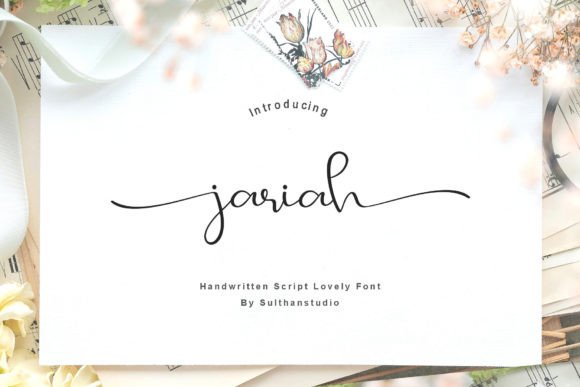
Jariah Font: Elevate Your Design with a Touch of Luxury
In the world of typography, fonts play a crucial role in conveying the tone and aesthetic of a design project. Among the numerous fonts available, Jariah Font stands out for its unique feel and stunning impact. This beautiful and light handwritten font is designed to add a luxury spark to any design project, making it a popular choice among designers and creatives.
What Makes Jariah Font Special?
Jariah Font is a handcrafted font that boasts a distinctive and elegant style. Its light and airy feel makes it perfect for designs that require a touch of sophistication and refinement. The font’s unique feel is characterized by its flowing lines, subtle curves, and carefully crafted letterforms. Whether you’re working on a branding project, a website design, or a print material, Jariah Font is sure to make a lasting impression.
Key Features of Jariah Font
- Unique Feel: Jariah Font has a distinct and elegant style that sets it apart from other fonts.
- Light and Airy: The font’s light feel makes it perfect for designs that require a touch of sophistication and refinement.
- Handwritten Style: Jariah Font is a handwritten font that adds a personal touch to any design project.
- Luxury Spark: The font’s elegant style and refined feel make it perfect for adding a touch of luxury to any design project.
The Power of PUA Encoding
One of the standout features of Jariah Font is its PUA (Private Use Area) encoding. This means that the font is encoded with a unique set of glyphs and ligatures that can be accessed with ease. PUA encoding allows designers to access a wide range of characters, including special glyphs, swashes, and ligatures, which can be used to add an extra layer of creativity and sophistication to their designs.
Benefits of PUA Encoding
- Ease of Use: PUA encoding makes it easy to access and use the font’s glyphs and ligatures.
- Increased Creativity: The font’s PUA encoding allows designers to experiment with different characters and glyphs, adding an extra layer of creativity to their designs.
- Flexibility: PUA encoding makes it easy to use the font in a variety of design projects, from branding and advertising to web design and print materials.
Uses of Jariah Font
Jariah Font is a versatile font that can be used in a wide range of design projects. Its elegant style and refined feel make it perfect for:
Design Projects that Suit Jariah Font
- Branding and Logo Design: Jariah Font is perfect for creating elegant and sophisticated brand identities.
- Website Design: The font’s light and airy feel makes it perfect for web design projects that require a touch of refinement and elegance.
- Print Materials: Jariah Font can be used in a variety of print materials, including business cards, brochures, and posters.
- Advertising: The font’s unique feel and stunning impact make it perfect for advertising projects that require a touch of luxury and sophistication.
Tips for Using Jariah Font
To get the most out of Jariah Font, here are a few tips to keep in mind:
Best Practices for Using Jariah Font
- Use it Sparingly: Jariah Font is a elegant and refined font, so it’s best to use it sparingly to avoid overwhelming the design.
- Pair it with Other Fonts: Jariah Font can be paired with other fonts to create a unique and interesting contrast.
- Experiment with Glyphs and Ligatures: The font’s PUA encoding makes it easy to access and experiment with different glyphs and ligatures.
Jariah Font is a beautiful and light handwritten font that adds a luxury spark to any design project. Its unique feel, stunning impact, and PUA encoding make it a popular choice among designers and creatives. Whether you’re working on a branding project, a website design, or a print material, Jariah Font is sure to make a lasting impression.